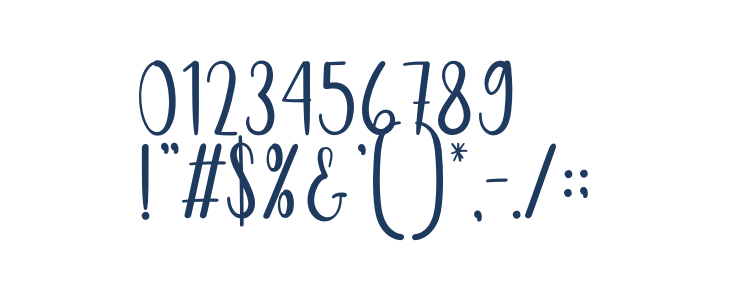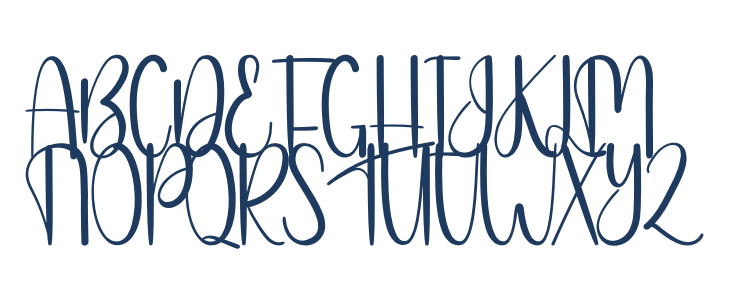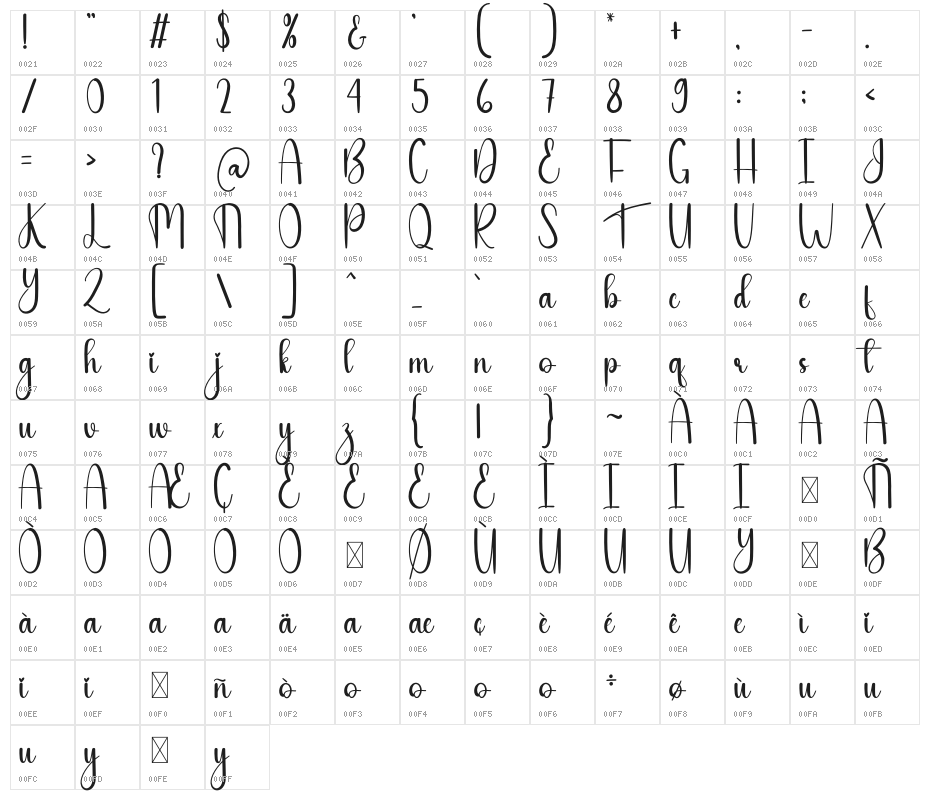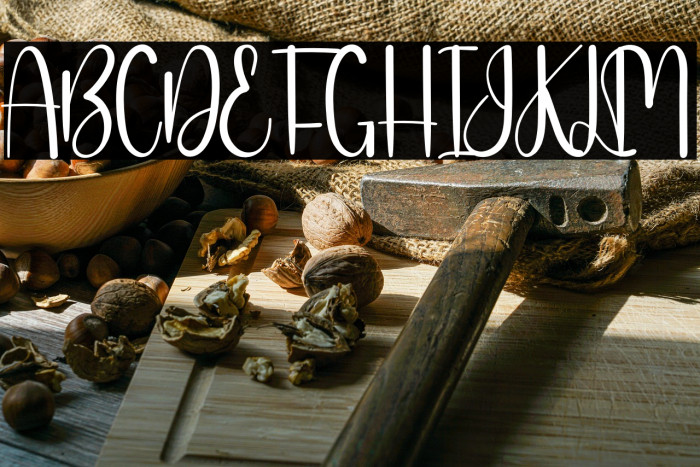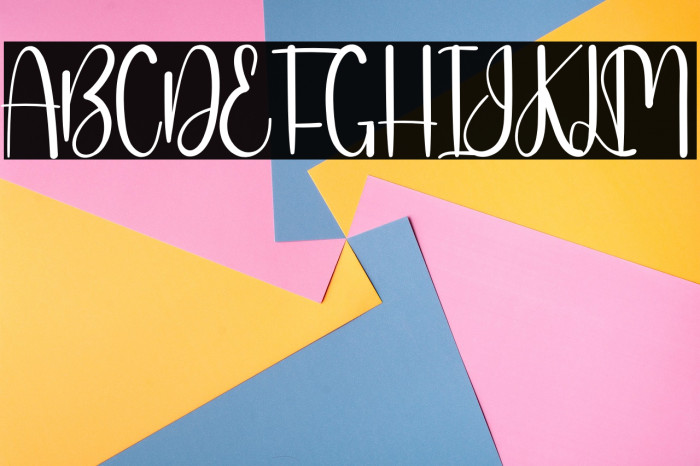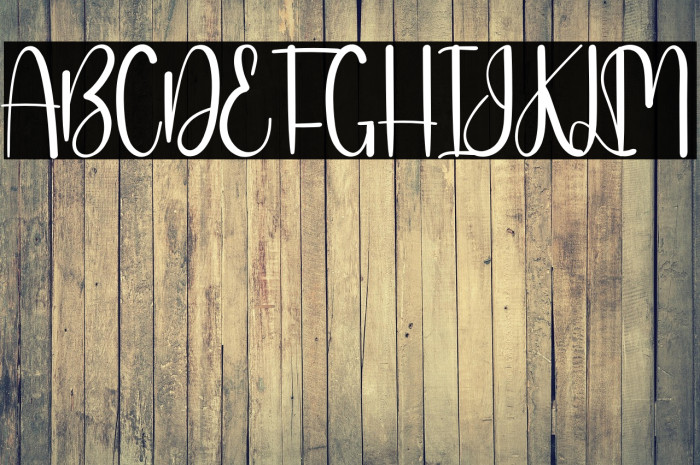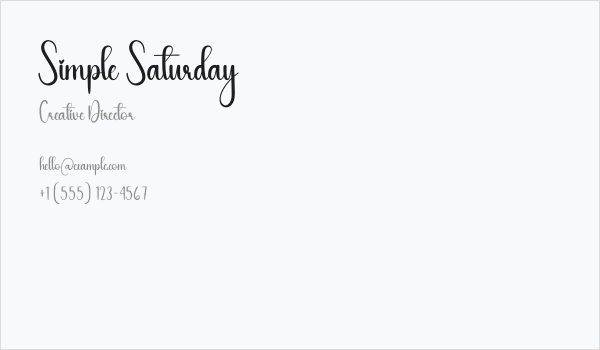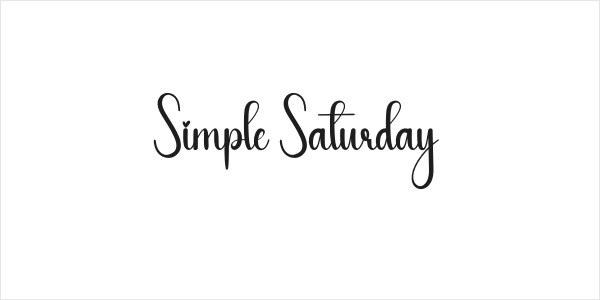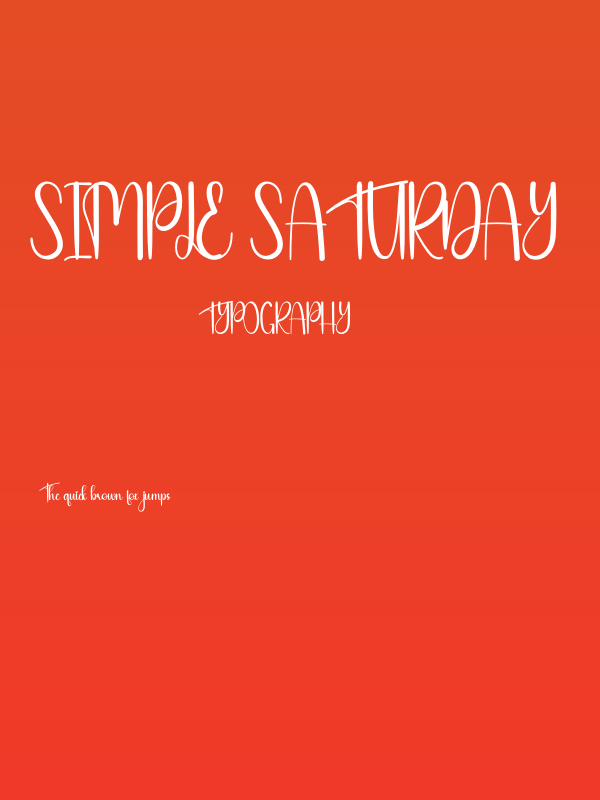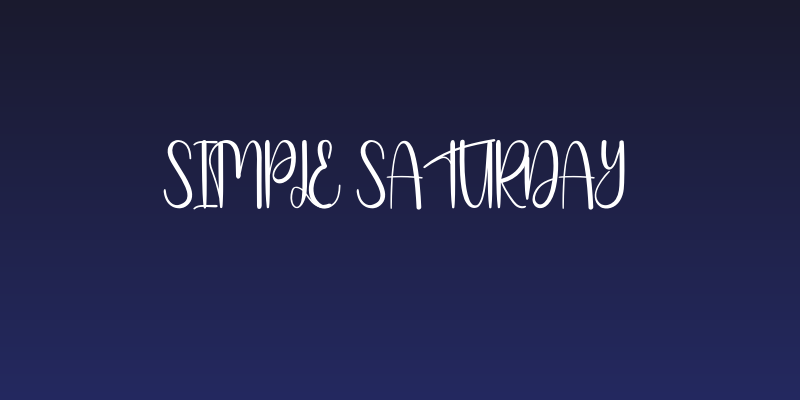
Simple Saturday Font
Simple Saturday Description
A playful, handwritten script font with tall, narrow letterforms and fluid, looping strokes. The characters have a casual, whimsical feel with varying line thickness and a slightly irregular baseline.
| Width | Condensed |
| Overall Style | Decorative, Playful, Casual |
| Use Case | Headlines, Logos, Decorative text, Invitations |
| Proposed Projects | Greeting cards, invitations, social media graphics, branding for creative businesses, quotes. |